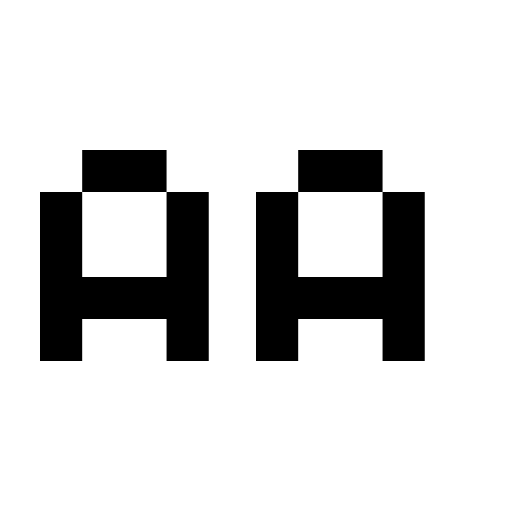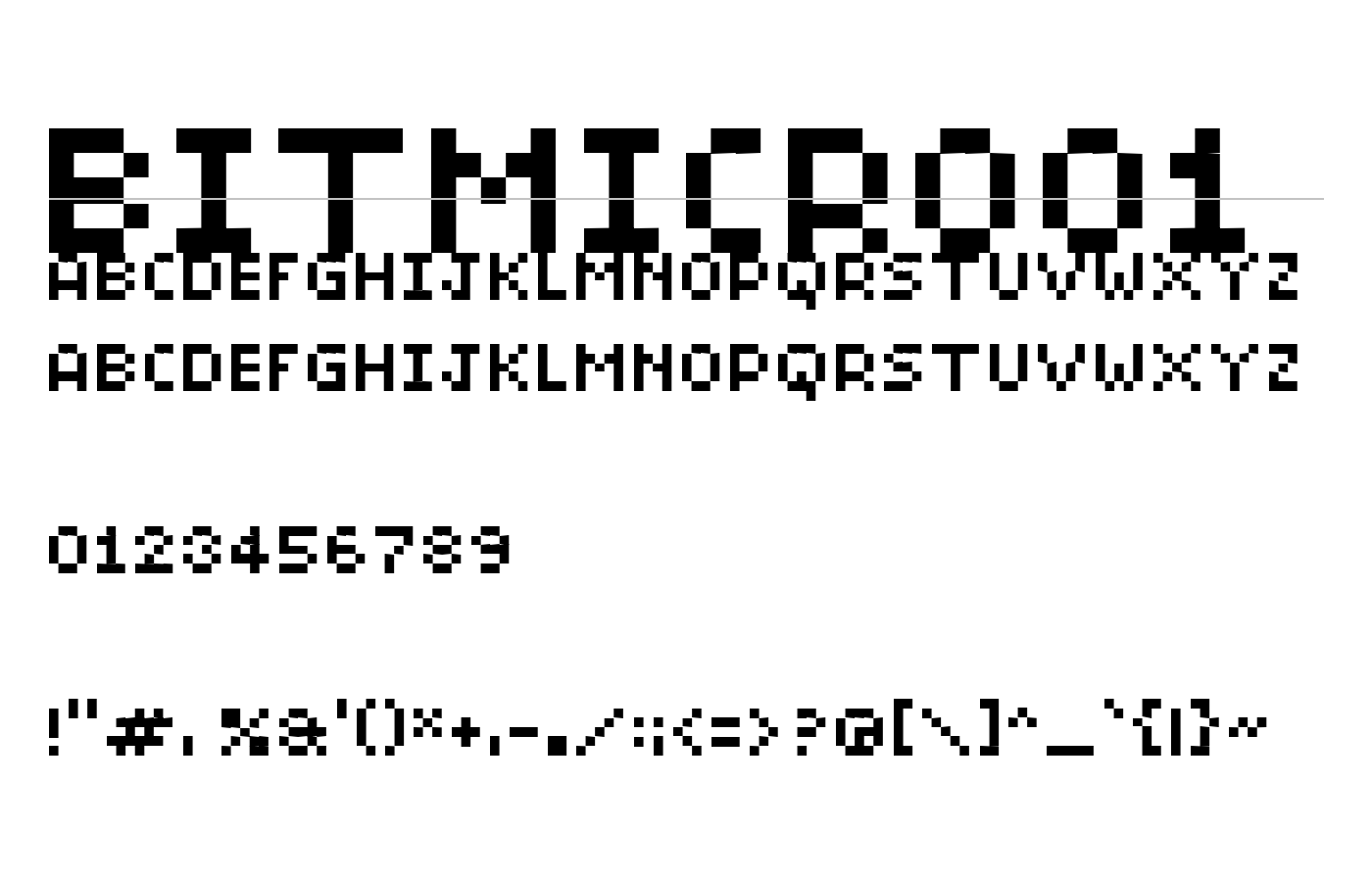
BitMicro01 is a pixelated, monospaced sans-serif font characterized by its blocky, geometric letterforms and uniform stroke weight. This font delivers a retro, digital aesthetic reminiscent of early computer screens, making it ideal for tech-inspired designs, video games, and digital-themed projects that call for a nostalgic yet modern feel. Its clear, modular style works best in headlines, logos, and interfaces where a distinctive, pixel-art charm is desired.
BitMicro01 Font
About BitMicro01 Font